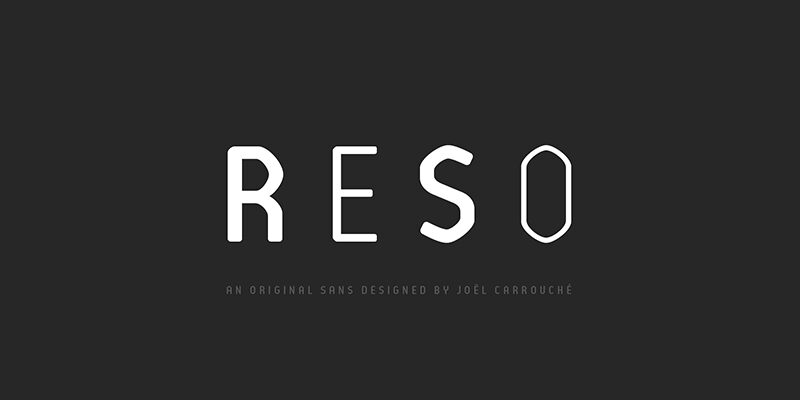
Reso, by JCfonts, is a sleek display font that expertly blends a futuristic techno style with a semi-light weight. This unique combination results in a bold yet elegant font that is perfect for any design project that calls for an edgy and modern look. From tech startups to fashion brands, Reso's versatility makes it suitable for any creative endeavor. Its sharp lines and distinctive curves make it stand out as an eye-catching choice for logos, branding materials, packaging design, and much more. So why settle for the ordinary when you can make your designs extraordinary with Reso?